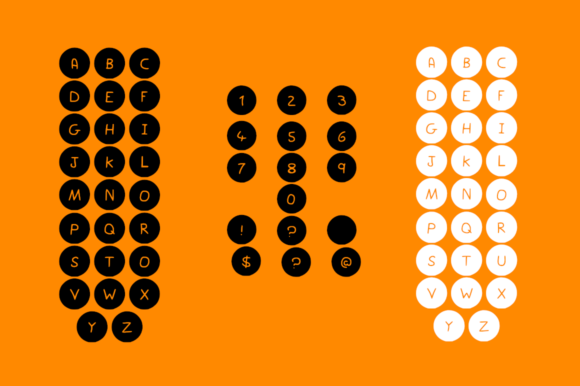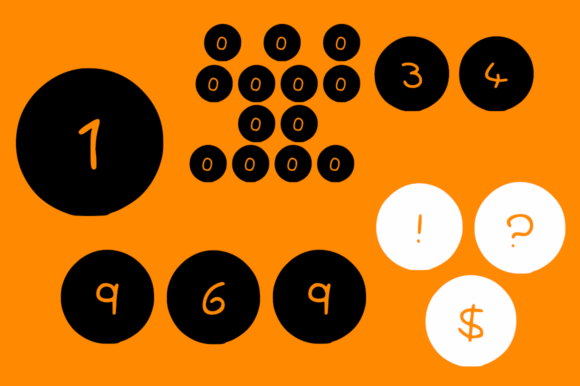
Introduction to Play Shapes Circles Font
Play Shapes Circles is a cute, fun and useful decorative font.
It will work incredibly well on teaching materials, game designs or pretty much any creation that requires a youthful touch .